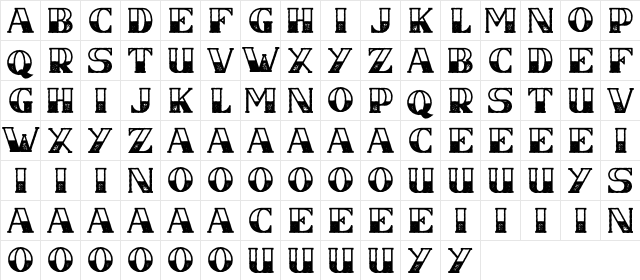
CS Nancy Free HalfblockRough Regular
| Designer | Craft Supply Co. |
Design Context for CS Nancy Free HalfblockRough Typeface
CS Nancy Free HalfblockRough embraces imperfection — its rough, textured character adds raw authenticity to designs that want to feel lived-in and unconventional.
A strong fit for alternative music projects, graffiti-adjacent design, and anything that deliberately resists polish.